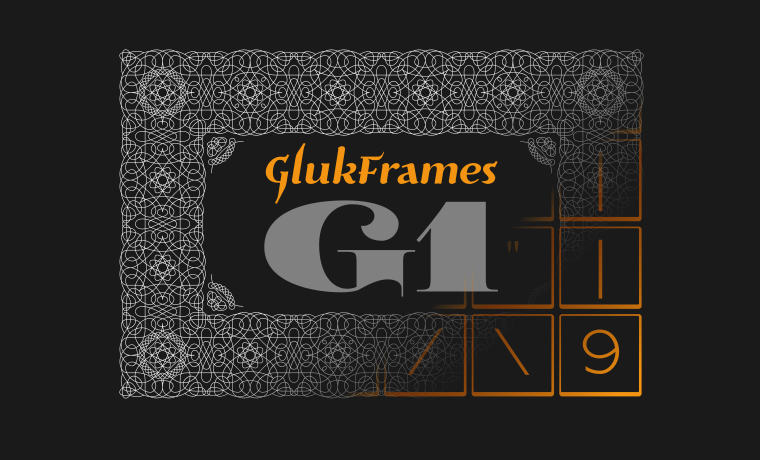
Font GlukFramesG1 is a set of Ele�ments for cre�at�ing Frames and Pat�terns in .otf For�mat. Full set of Ele�ments, Exam�ples of use and Tips You find in pdf. Atten�tion: Exper�i�men�tal Set, cor�rect work depend of Soft�ware Set�tings like: Line�spacing, Text Align�ment etc. GlukFramesG1 may be a bit heavy for Your sys�tem. |